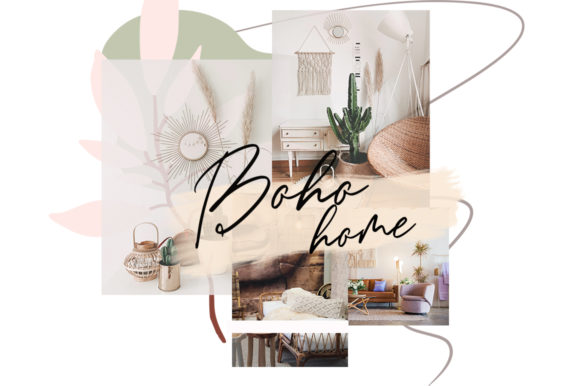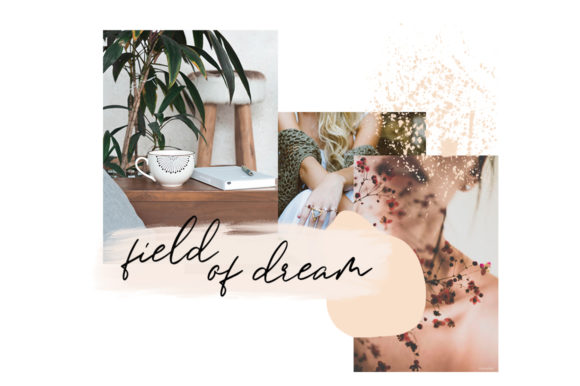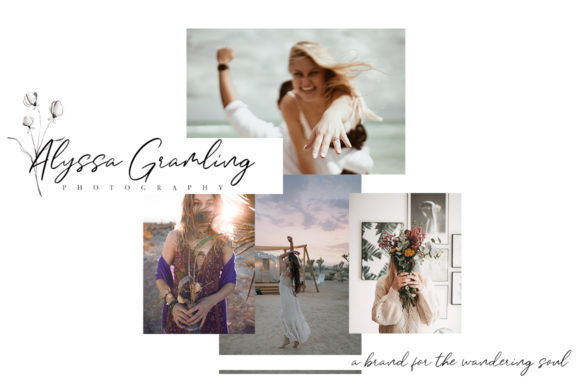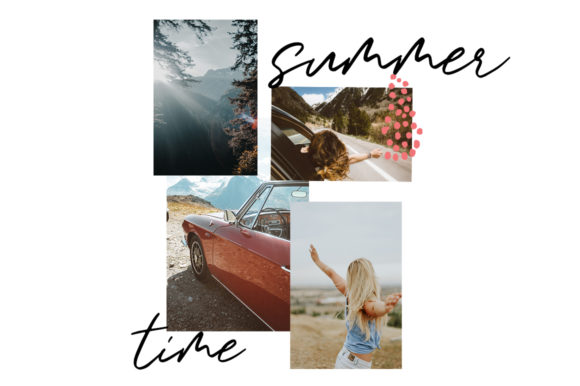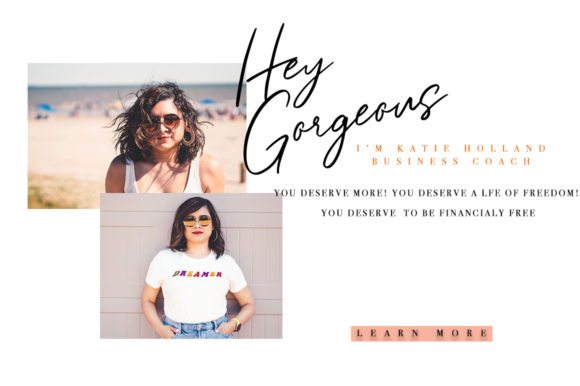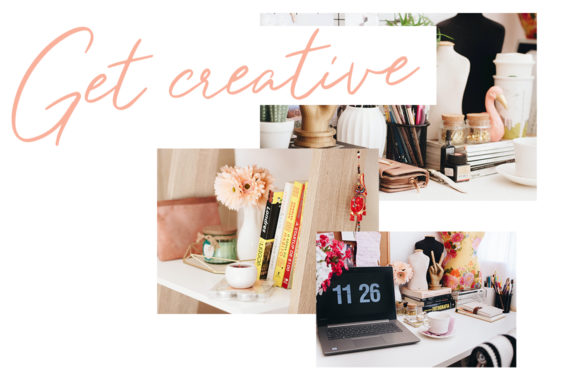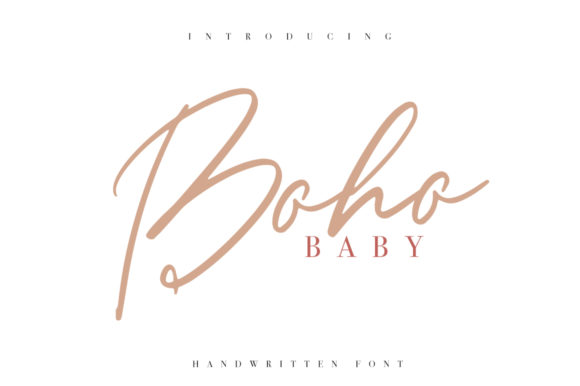
The Boho Baby Font: A Designer’s New Best Friend
I’ll never forget the time I was working on a project for a client who wanted a font that was both elegant and playful. I spent hours scouring the internet for the perfect font, but nothing seemed quite right. That was until I stumbled upon the Boho Baby font. This beautiful handwritten font has been a game-changer for my designs, and I’m excited to share it with you.
I’ve been using the Boho Baby font for a while now, and I have to say, I’m obsessed. Here are a few things I love about it:
- ✨ Unique style: Boho Baby brings a fresh and unique style to any design project. It’s perfect for adding a touch of personality to your work.
- ✅ Versatility: This font is incredibly versatile. It looks great in headlines of all sizes, as well as in blocks of text with varying lengths.
- 💻 Cross-platform compatibility: Boho Baby works beautifully on the web, in print, and even in moving images.
Of course, no font is perfect, and Boho Baby has a few quirks:
- 🤔 Limited use in very small text: While Boho Baby looks great in headlines and body text, it can be a bit tricky to read in very small sizes.
- ⚠️ No built-in italics: If you need an italic version of the font, you’ll need to use a different font or create your own.
The Story Behind Boho Baby
Boho Baby was designed by a team of typographers who wanted to create a font that was both elegant and playful. Inspired by classic typography, they brought their own unique style to the font, making it perfect for designers who want to add a touch of personality to their work.
| Font Name | Boho Baby Font |
| Author | Katie Holland |
| What is the Boho Baby font best suited for? | The Boho Baby font is best suited for headlines of all sizes, as well as for blocks of text that have both maximum and minimum variations. |